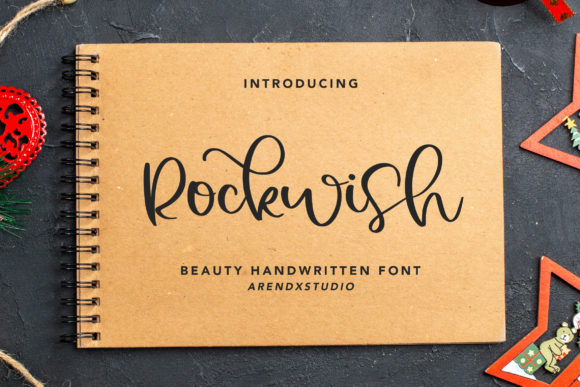
Rockwish Font
Unleash the Power of Authenticity: Introducing Rockwish Font, the Ultimate Handwritten Masterpiece for Your Branding Needs
In a world saturated with digital noise, your brand's identity needs to shine brighter than ever. Enter Rockwish Font, the captivating handwritten font designed to elevate your branding to new heights. With its distinctive characters and free-flowing style, Rockwish offers a unique and personal touch that will leave a lasting impression on your audience.
Experience the Versatility of Rockwish: A Font that Adapts to Your Creative Vision
Whether you're designing logos, crafting wedding invitations, or creating eye-catching social media posts, Rockwish Font is your versatile companion. Its adaptability knows no bounds, allowing you to seamlessly integrate it into any project that calls for a handwritten touch. From product packaging and labels to photography and watermarks, Rockwish effortlessly elevates your designs with its timeless charm.
Express Your Brand's Individuality: Stand Out from the Crowd with Rockwish
In a competitive marketplace, your brand needs to stand out from the crowd. Rockwish Font provides the perfect canvas to showcase your brand's unique personality. Its expressive strokes and organic flow create a sense of authenticity that resonates with your audience, building a strong emotional connection that drives brand loyalty.
Craft Timeless Designs that Captivate and Inspire
With Rockwish Font at your disposal, you can craft designs that transcend time and trends. Its classic handwritten style adds a touch of elegance and sophistication to any project, ensuring that your creations remain relevant and captivating for years to come. Make a statement that resonates with your audience and leaves a lasting impression.
Unlock the Endless Possibilities of Rockwish: The Perfect Font for Every Occasion
Whether you're designing invitations for a special occasion, creating marketing materials for your business, or simply adding a personal touch to your personal projects, Rockwish Font is the perfect choice. Its versatility and adaptability make it the ideal font for any occasion, allowing you to express yourself fully and create designs that truly reflect your vision.